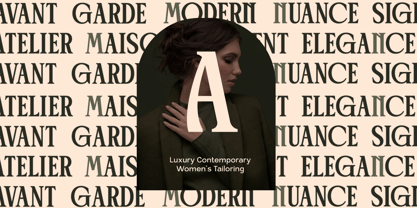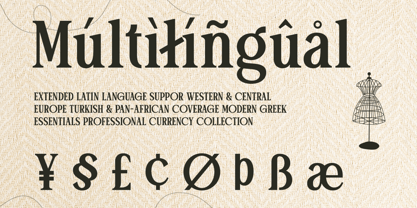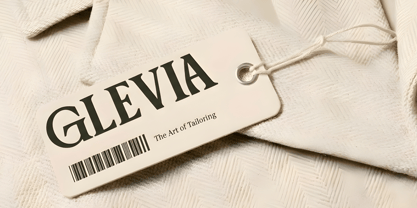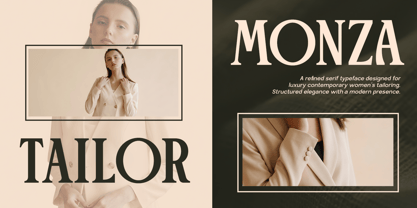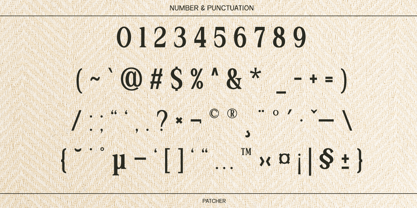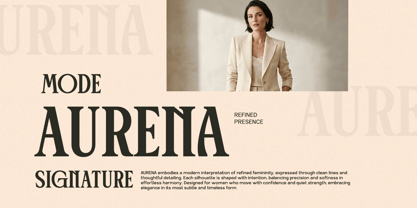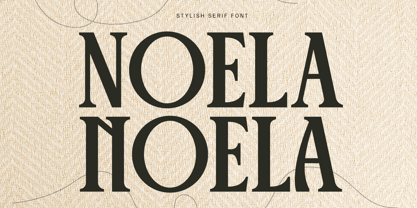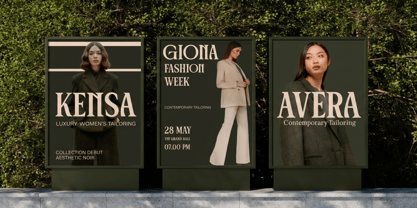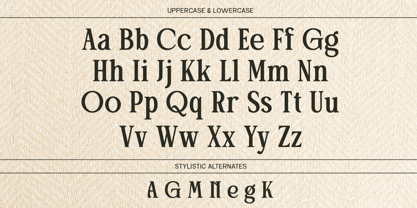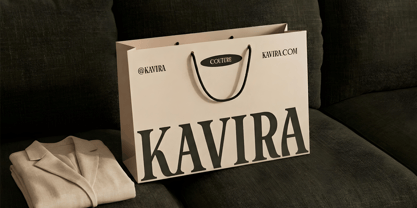
Patcher
by Say Studio
Patcher is a stylish serif font designed to provide a refined and modern typographic presence. Featuring elegant curves, a balanced serif structure, and clean proportions, Patcher seamlessly blends contemporary design with timeless sophistication. The letterforms exude confidence and grace, making this font ideal for premium visual identities. Perfect for fashion branding, editorial layouts, luxury packaging, logos, magazines, and chic marketing materials, Patcher offers versatility for designers aiming to craft sophisticated compositions. Its elegant serif structure enhances readability while ensuring a strong visual personality across both digital and print designs. Whether utilized for fashion brands, modern editorials, beauty campaigns, or luxury branding, Patcher infuses a sense of style and professionalism into any project. This font harmonizes elegance, clarity, and modern aesthetics, resulting in designs that feel both premium and contemporary. Thank You Saystudio